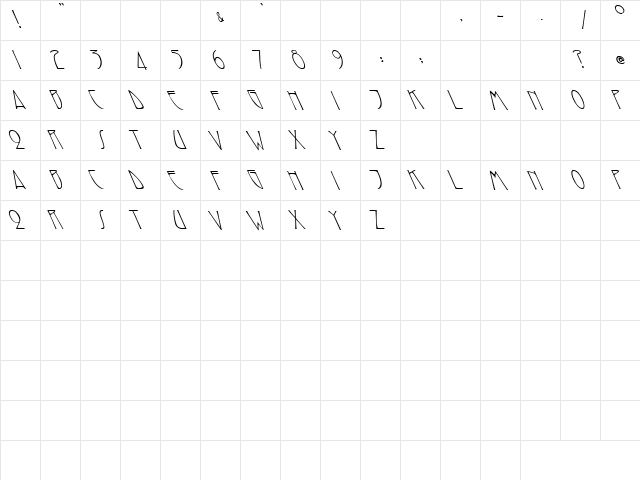
Roadhouse 2 Regular
Design Context for Roadhouse 2 Typeface
Roadhouse 2 offers clean, dependable letterforms without strong stylistic allegiance, making it a practical choice for designers who need flexibility.